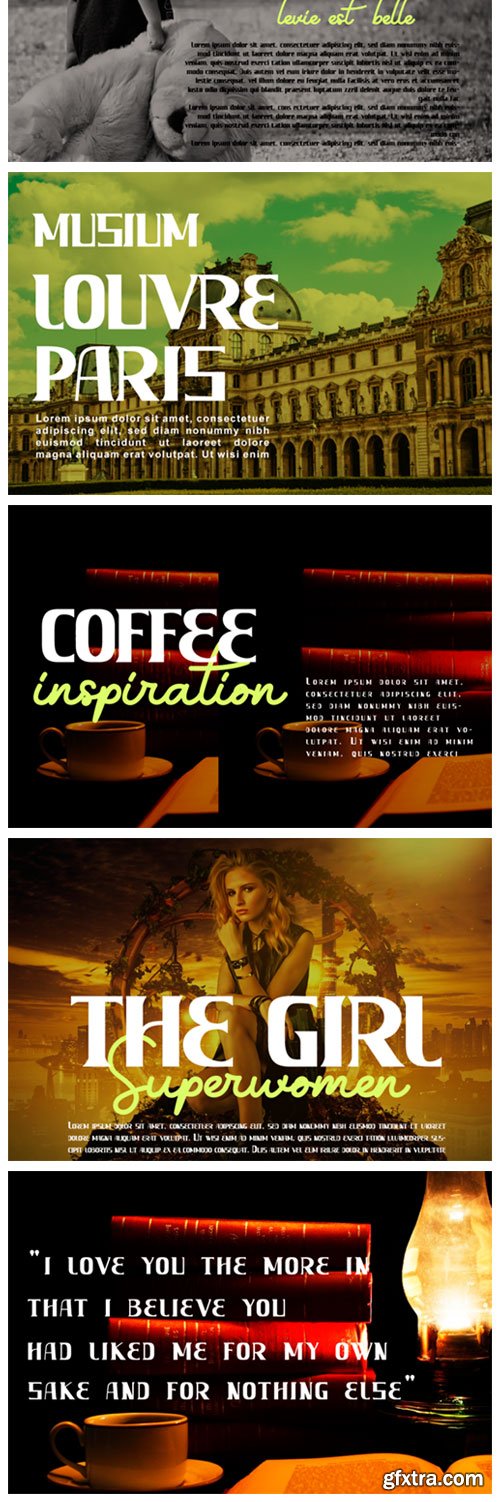
The Arxack Font
The Arxack is a cool, bold and vintage styled display font. It can be used for various purposes such as logos, headings, t-shirts, letterhead, signage, labels, news, posters, badges and so much more.
The Arxack Font
The Arxack is a cool, bold and vintage styled display font. It can be used for various purposes such as logos, headings, t-shirts, letterhead, signage, labels, news, posters, badges and so much more.